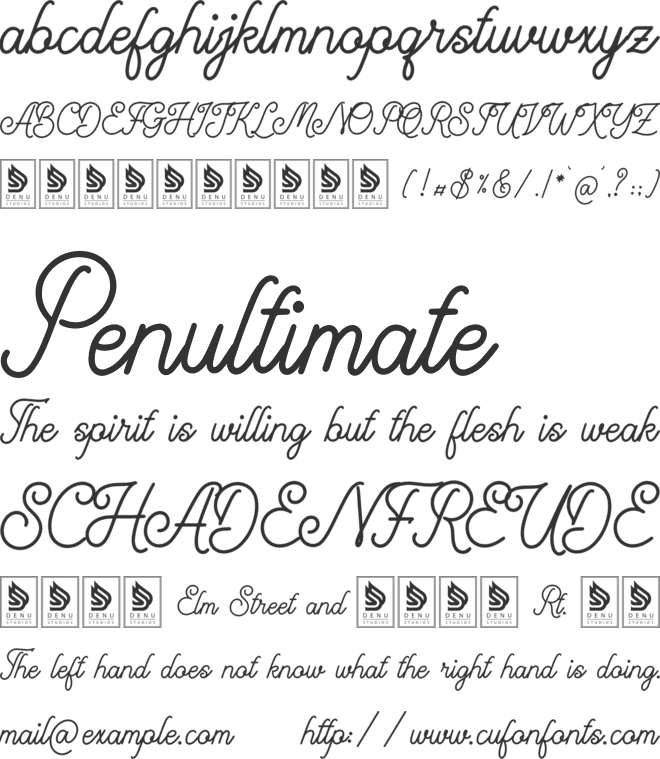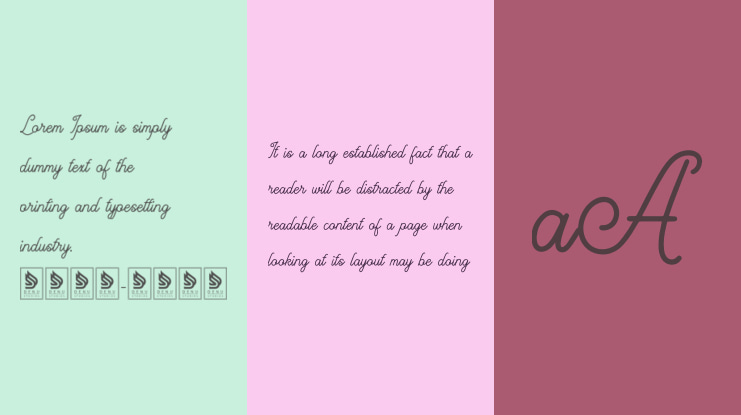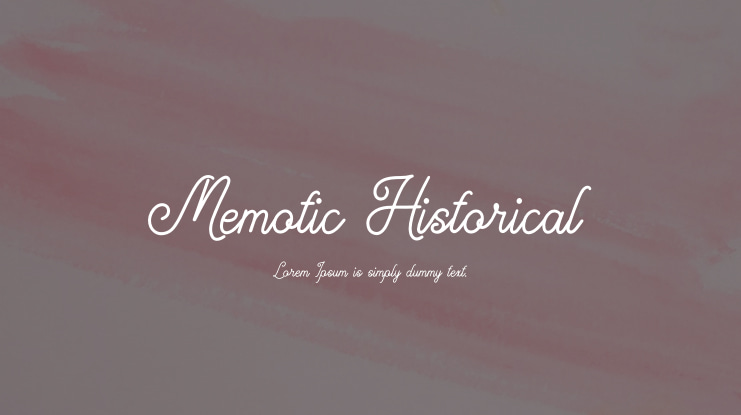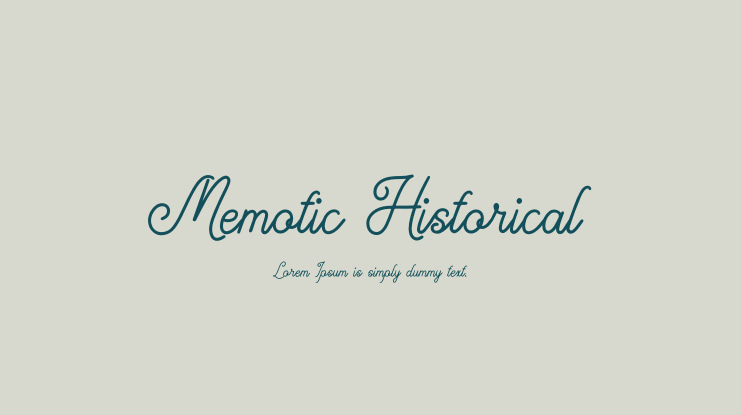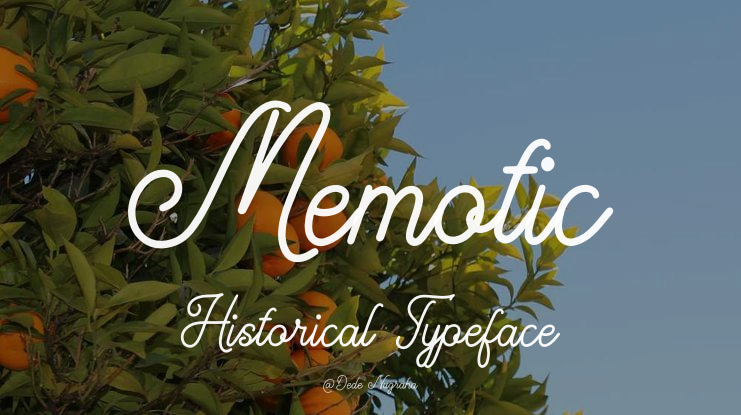
Memotic Historical Font
**Memotic Historical | Monoline Script Font**
Memotic Historical is a versatile Monoline Script Font perfect for a wide array of projects, including logos, branding, homeware designs, product packaging, mugs, quotes, posters, shopping bags, t-shirts, book covers, name cards, invitation and greeting cards, labels, photography, watermarks, special events, and more. Any of your lovely projects that require a touch of Monoline Script will benefit from this font.